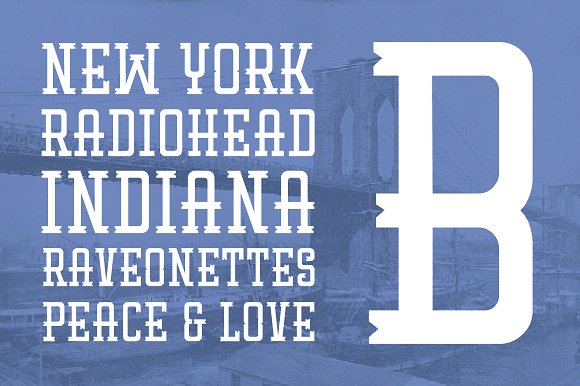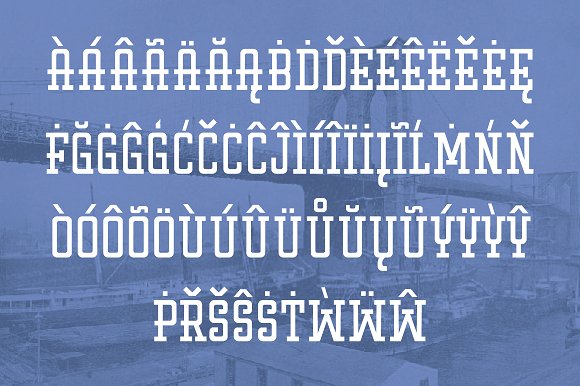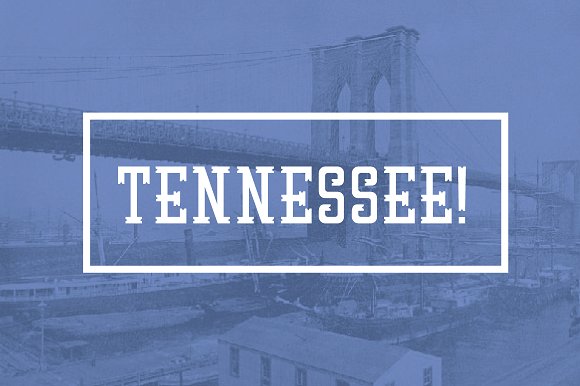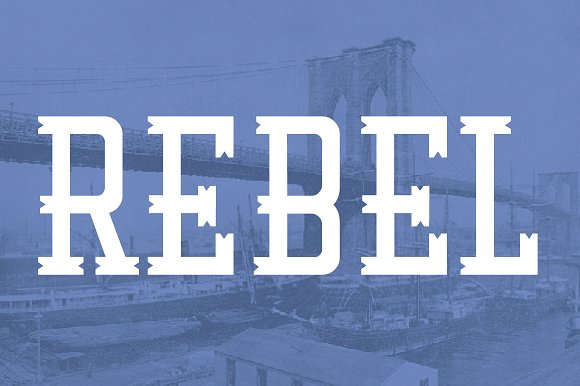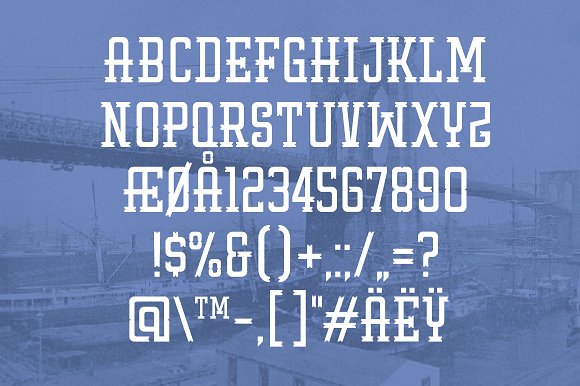
Fellars Font: A Retro Revival Inspired by Brooklyn’s Vintage Charm
In the world of typography, fonts play a crucial role in conveying the tone and aesthetic of a brand or design. For designers and crafters looking to add a touch of nostalgia and uniqueness to their work, Fellars Font is an exciting choice. This retro typeface draws inspiration from the old times in Brooklyn, blending classic elements with an avant-garde twist.
The Inspiration Behind Fellars Font
Fellars Font finds its roots in the vintage signs of Brooklyn’s shops, barber shops, and tobacco companies. These old signs, with their faded letters and distressed look, tell stories of a bygone era. The creators of Fellars Font took these classic typographic elements and infused them with a modern, avant-garde style. The result is a font that pays homage to the past while standing out in contemporary designs.
Characteristics of Fellars Font
Fellars Font boasts several distinctive characteristics that set it apart from other typefaces:
- Retro Charm: The font captures the essence of vintage typography, making it perfect for projects that require a nostalgic feel.
- Avant-Garde Style: With its unique and artistic approach, Fellars Font adds a modern edge to any design.
- Versatility: This font can be used in a variety of applications, from branding and advertising to packaging and digital media.
- Legibility: Despite its retro inspiration, Fellars Font maintains high legibility, making it suitable for both headlines and body text.
Uses of Fellars Font
The versatility of Fellars Font makes it an excellent choice for a wide range of design projects:
- Branding and Logo Design: Give your brand a unique and memorable identity with a font that stands out.
- Advertising and Marketing Materials: Use Fellars Font to create eye-catching posters, flyers, and brochures that capture attention.
- Packaging Design: Add a touch of nostalgia and charm to your product packaging.
- Digital Media: Incorporate Fellars Font into your website, social media graphics, or digital advertisements for a distinctive look.
- Crafting and DIY Projects: Whether you’re creating handmade cards, scrapbooking, or working on other craft projects, Fellars Font can add a personalized and artistic touch.
Tips for Using Fellars Font Effectively
To make the most of Fellars Font, consider the following tips:
- Mix and Match: Combine Fellars Font with other typefaces for a layered, dynamic look.
- Play with Textures: Enhance the retro feel by incorporating textures or distress effects into your text.
- Adjust Size and Weight: Experiment with different sizes and weights of Fellars Font to create visual hierarchy and emphasis.
- Color Matters: Choose colors that complement the vintage vibe of the font, such as earth tones, pastels, or rich contrasts.
Fellars Font is a unique and captivating typeface that brings the charm of Brooklyn’s vintage signs into your designs. With its blend of retro inspiration and avant-garde style, it’s an excellent choice for designers and crafters looking to add a distinctive touch to their work. Whether you’re creating branding materials, advertising, packaging, or crafting projects, Fellars Font offers the versatility and character to make your designs stand out.
Embrace the nostalgia and creativity that Fellars Font has to offer, and let your designs tell a story of their own.